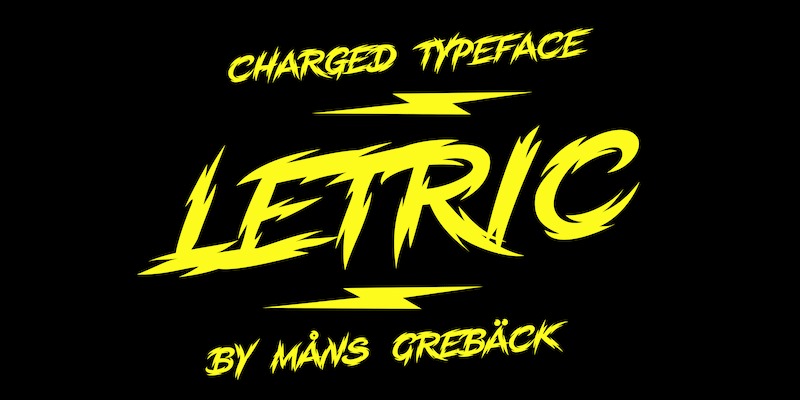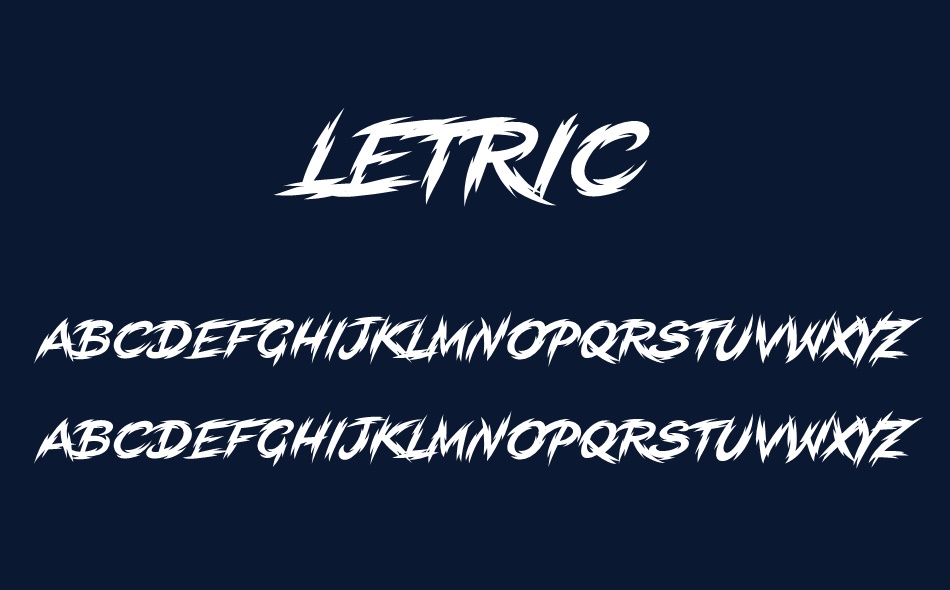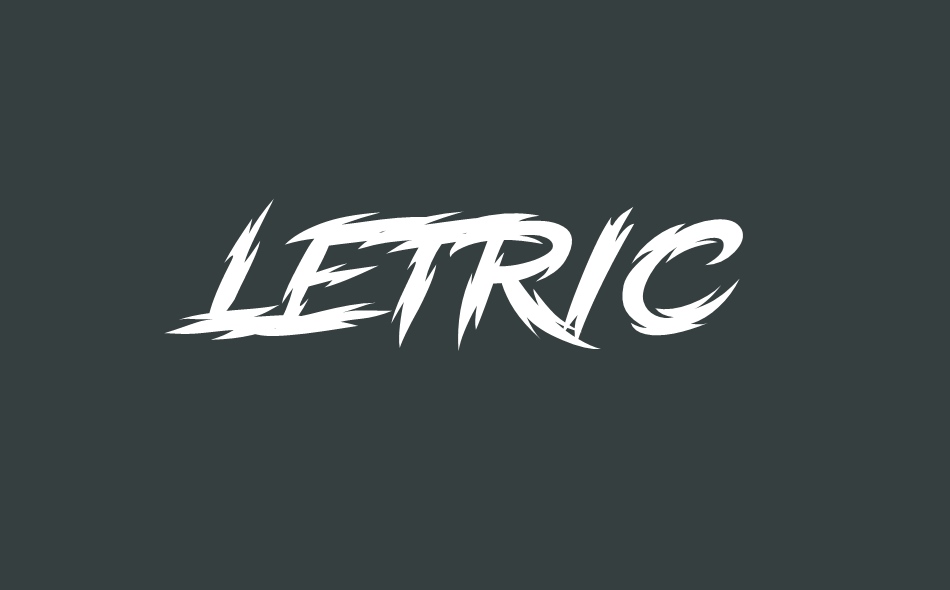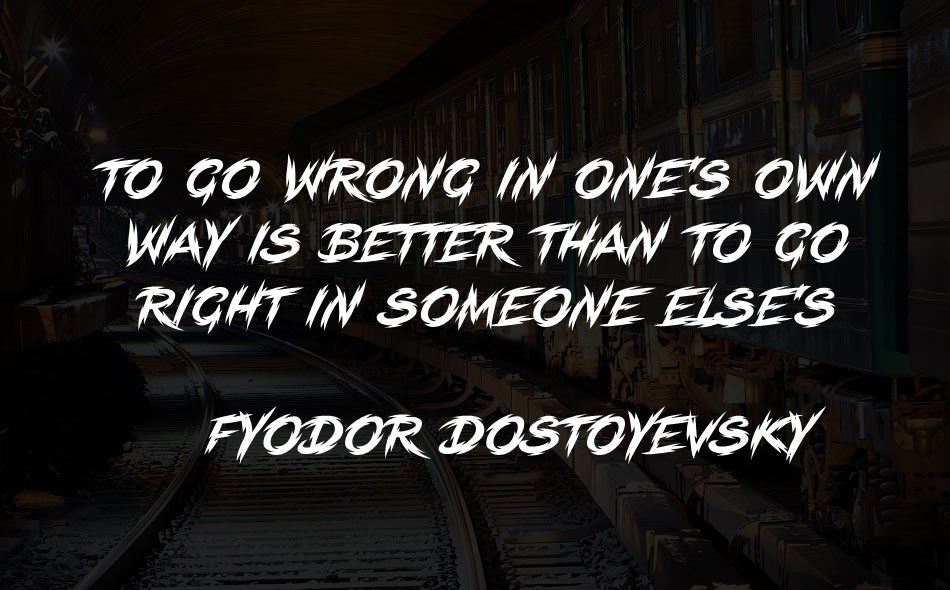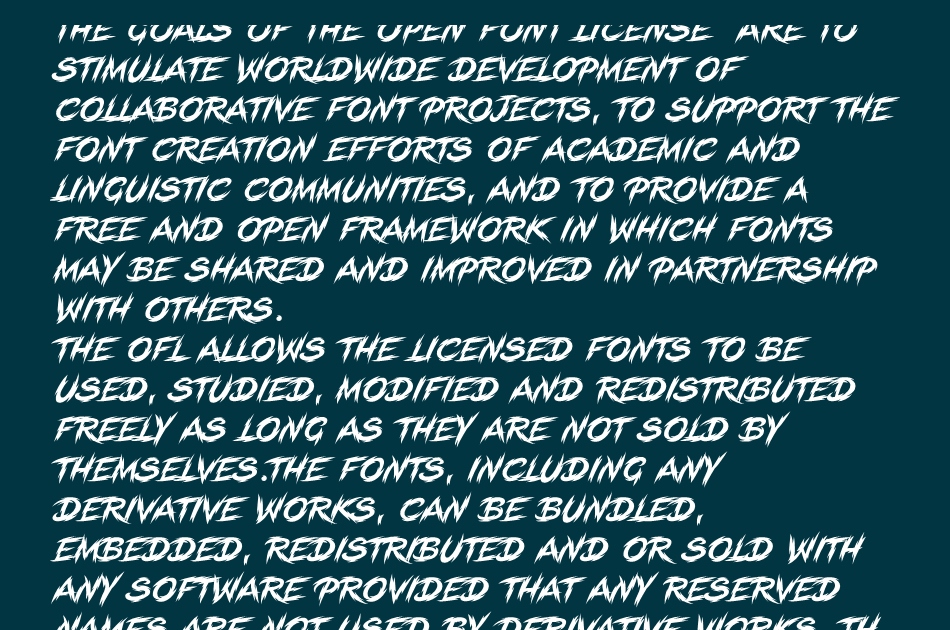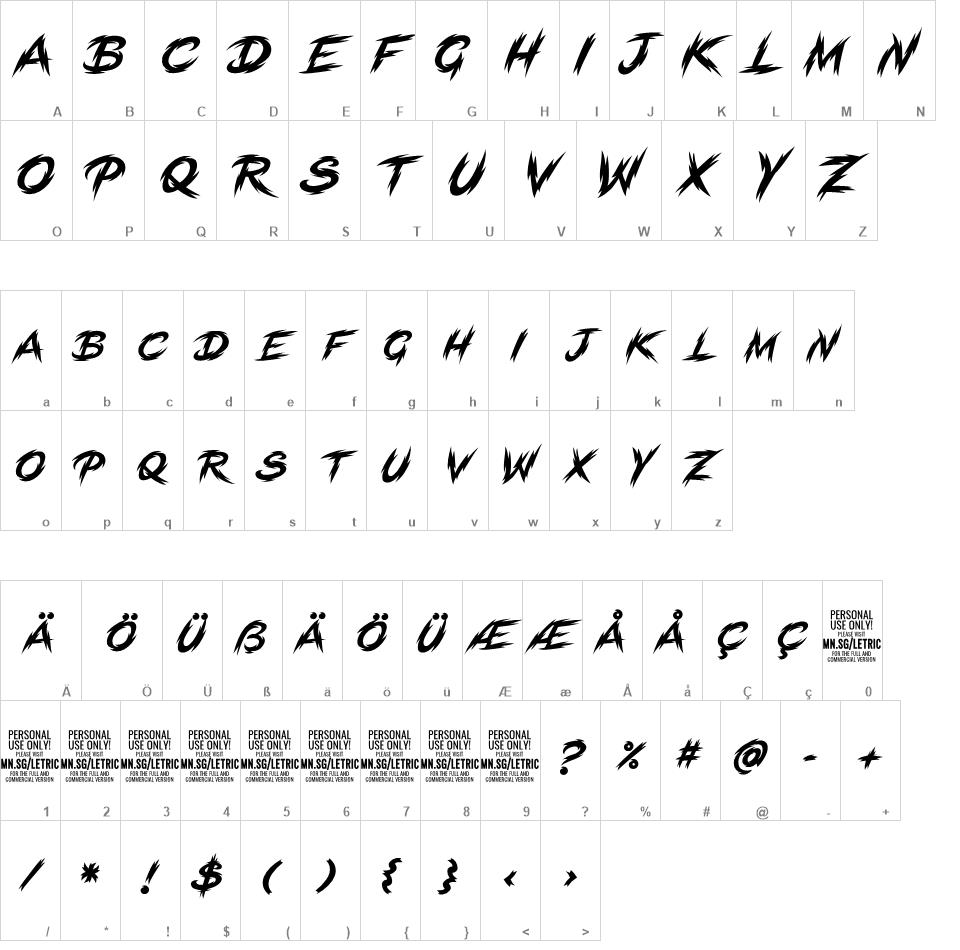
Letric font
Letric is a high-energy capital typeface.
With traits of a brush comic title, it has rough and cut edges, electric in nature but with smooth curves.
The strokes are reminiscent of a tiger's skin, making for a great jungle or wildlife font.
Used in the right context, with the right wording, it fits perfectly as a vintage thriller/splatter/horror movie header typography.
This cartoon sans-serif is slanted/italic as default but also comes with a professional upright style.
The font is built with advanced OpenType functionality and has a guaranteed top-notch quality, containing stylistic and contextual alternates, ligatures and more features; all to give you full control and customizability.
It has extensive lingual support, covering all Latin-based languages, from North Europe to South Africa, from America to South-East Asia.
It contains all characters and symbols you'll ever need, including all punctuation and numbers.